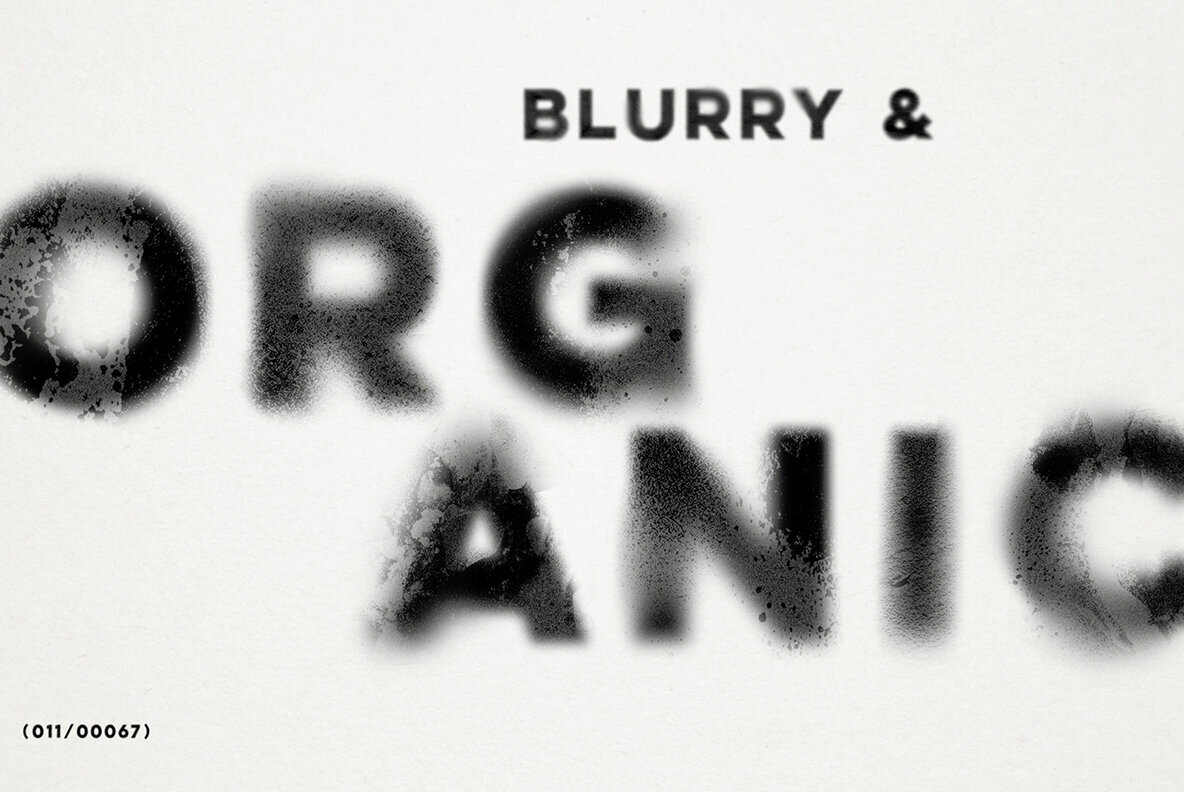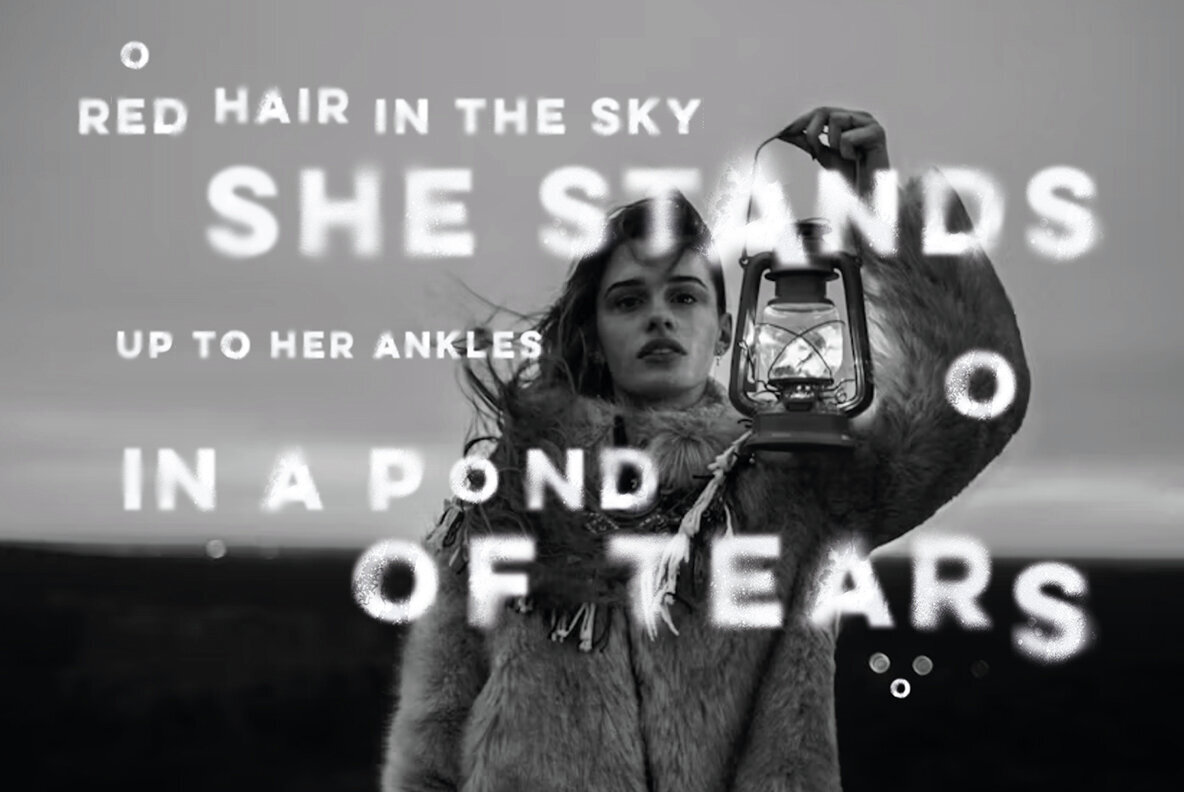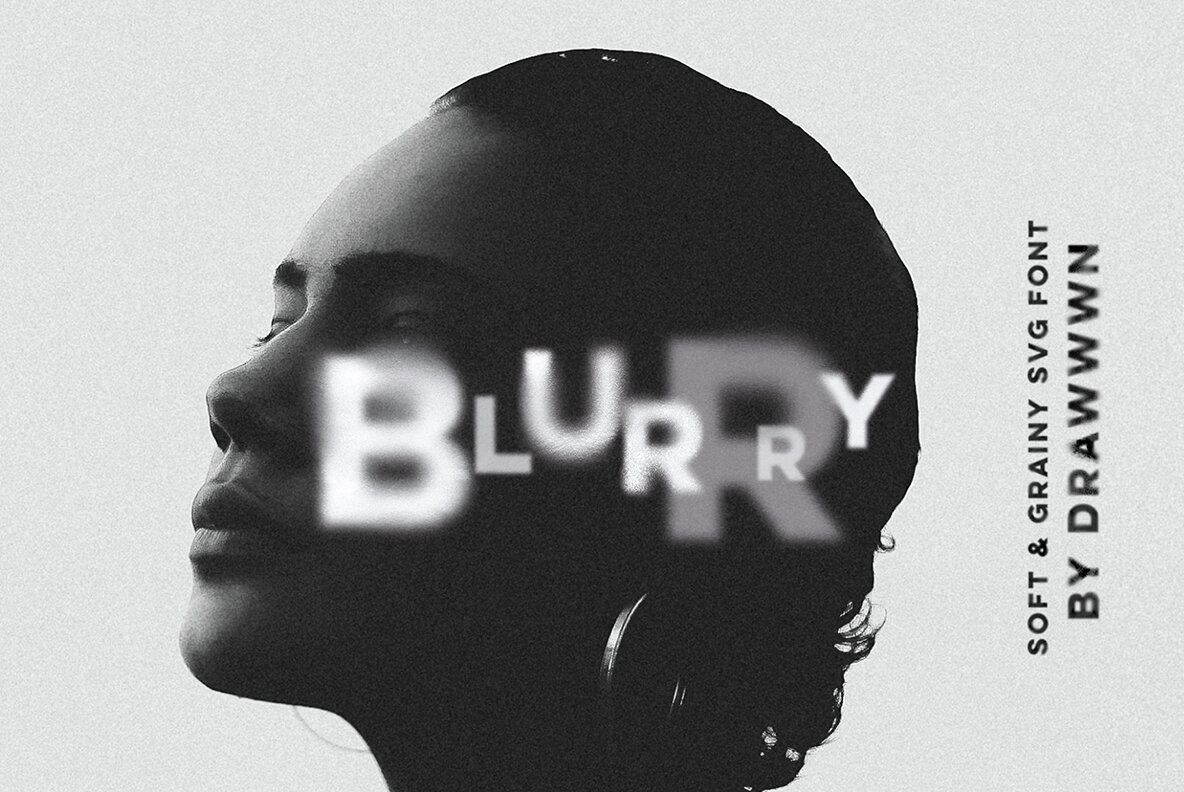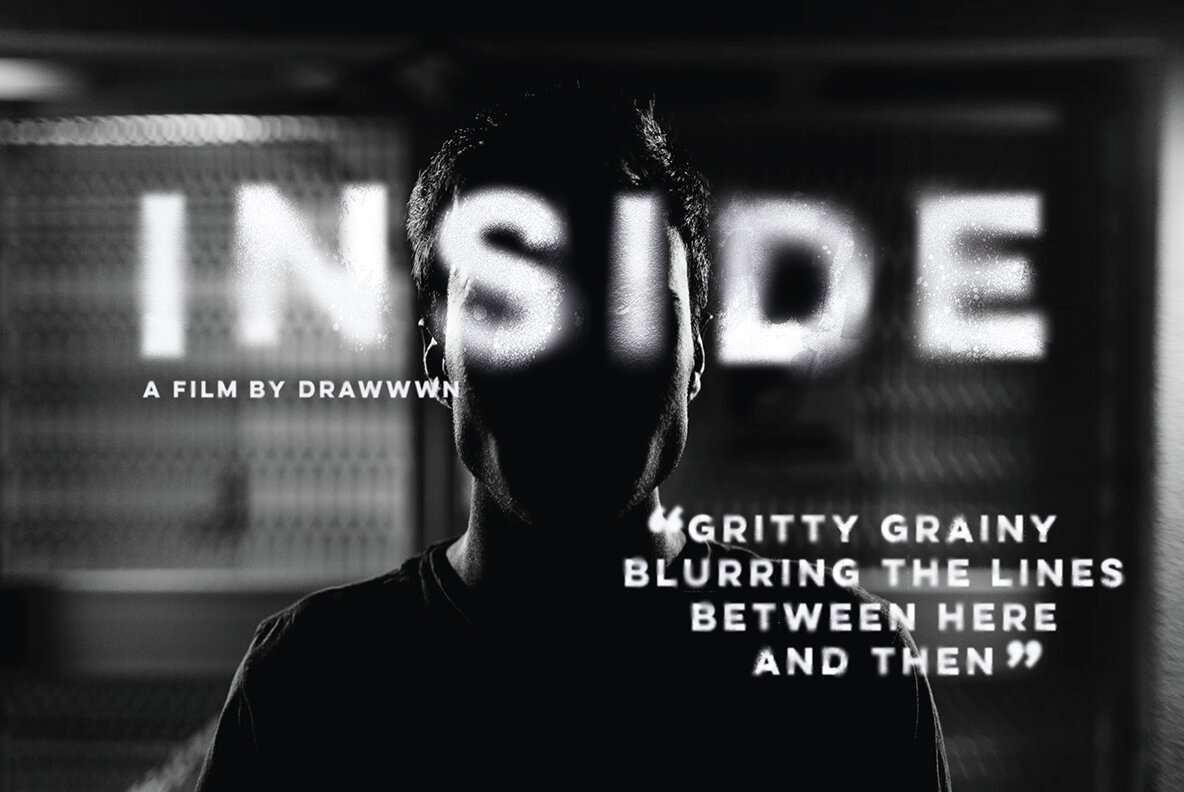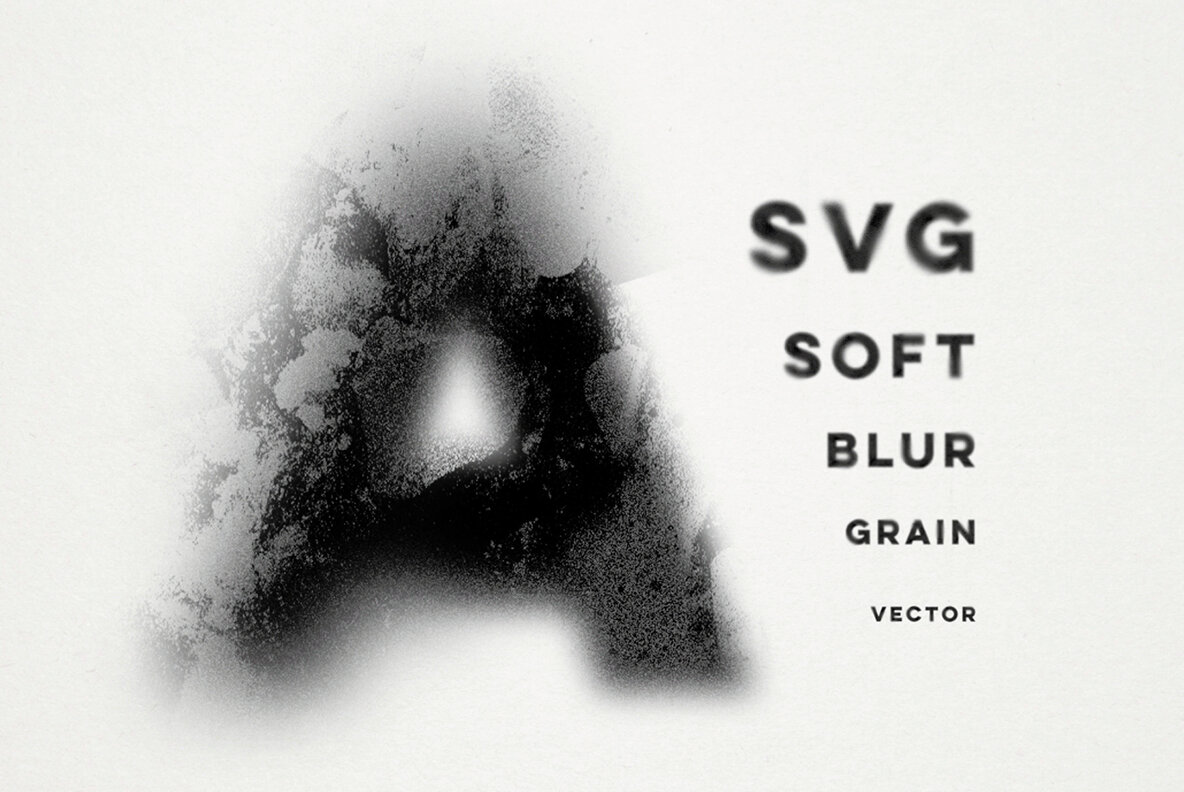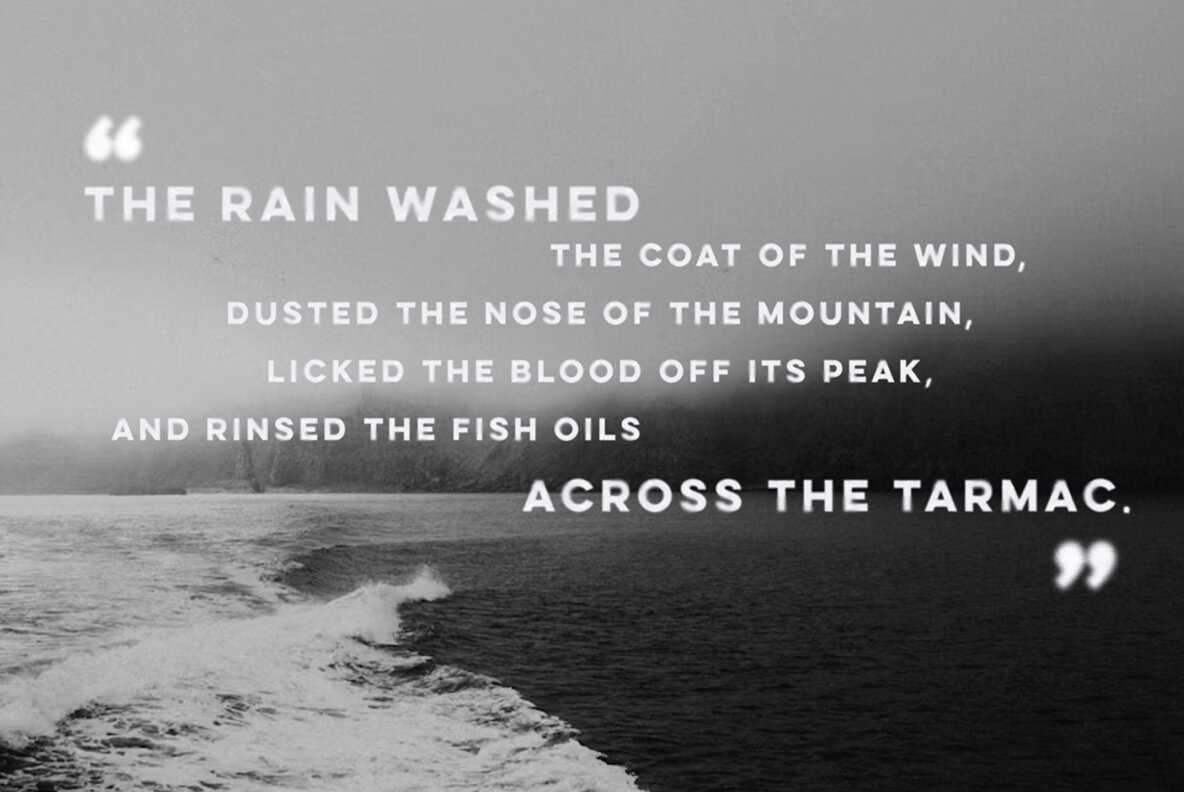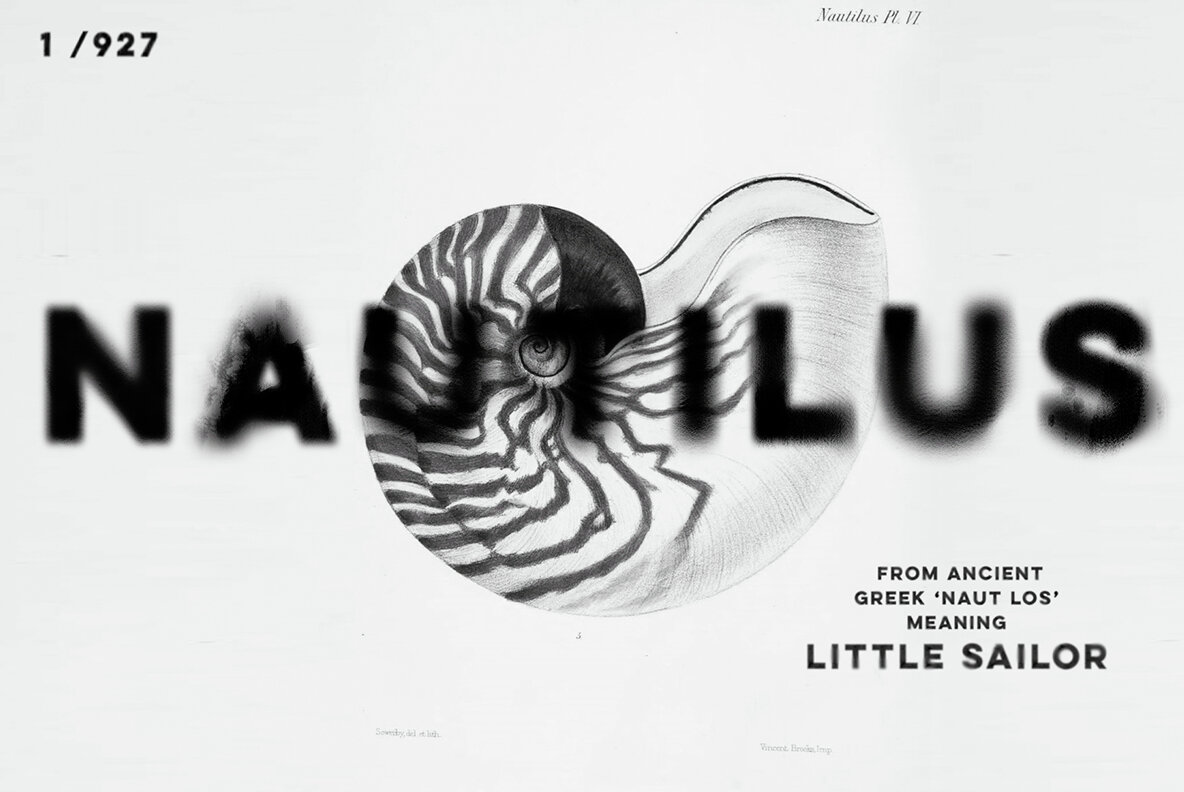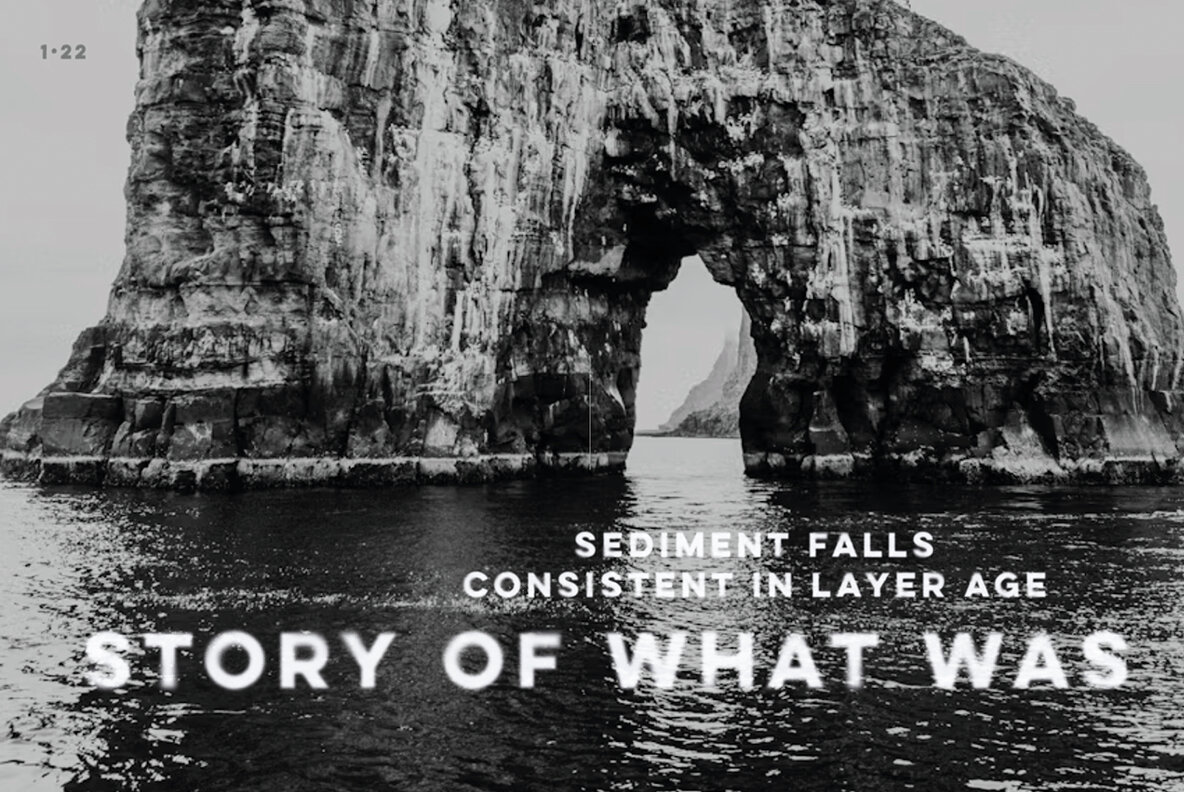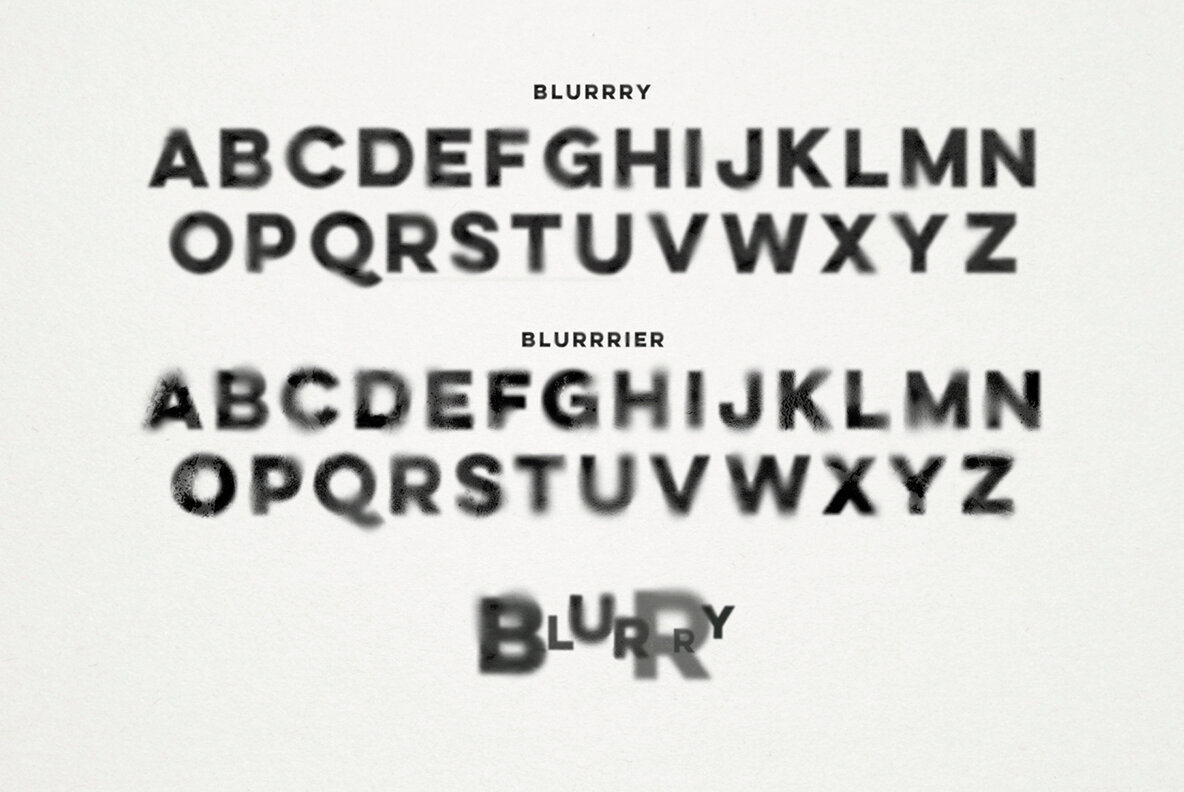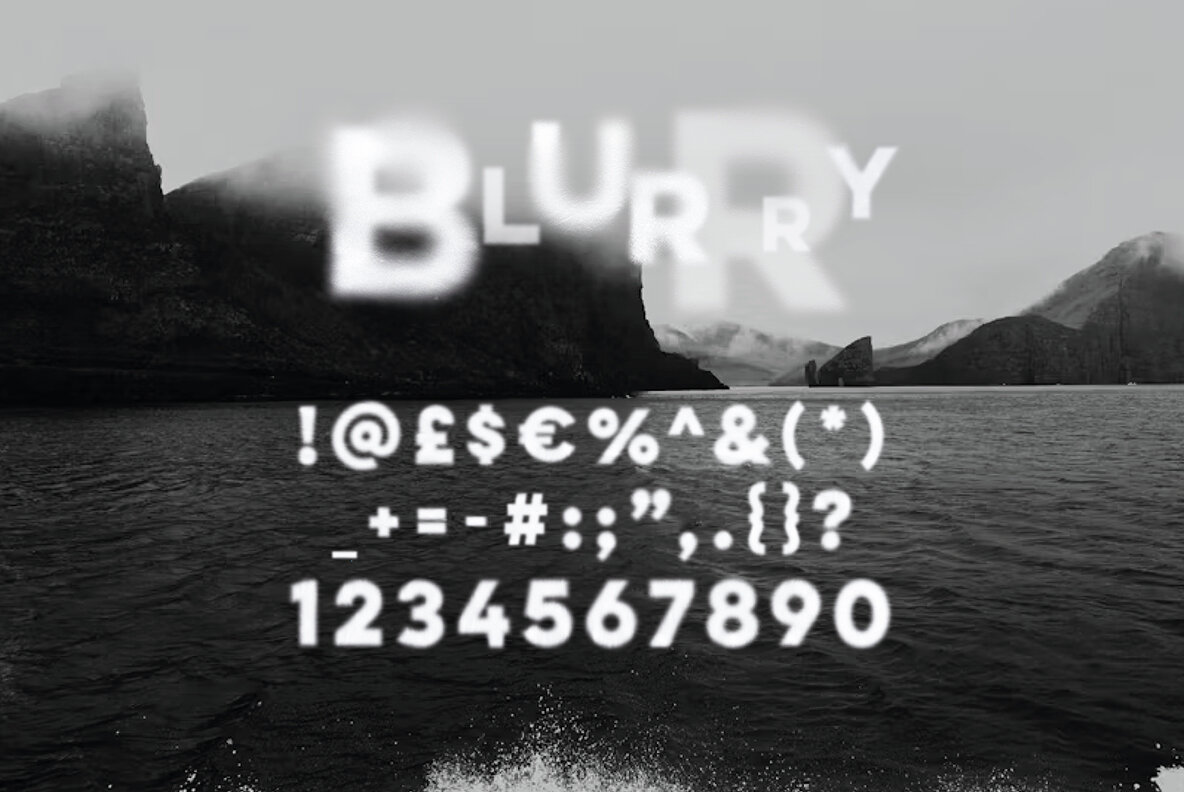
Blurrry SVG Font
Blurrry is a soft focus SVG font with added grain. Lowercase is blurry, uppercase is blurrier, with a vintage film quality - get dark and moody.